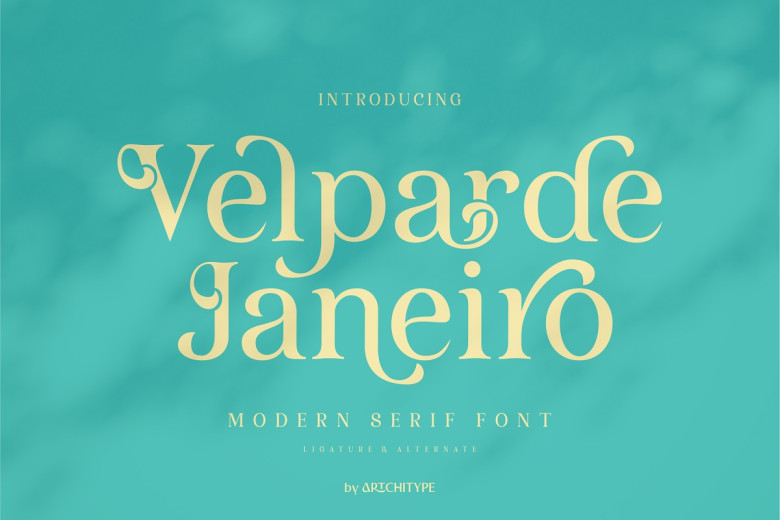
Velparde Janeiro is an elegant display serif font. It contains uppercase and lowercase characters as well as multilingual, alternative characters and the most frequently used other characters – perfect for logos, social media posts, product packaging designs or any other project requiring elegant fonts.
Velparde Janeiro Serif Font